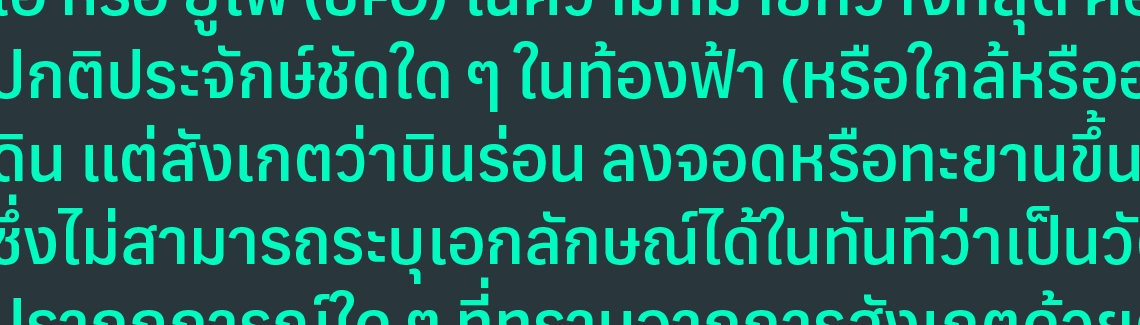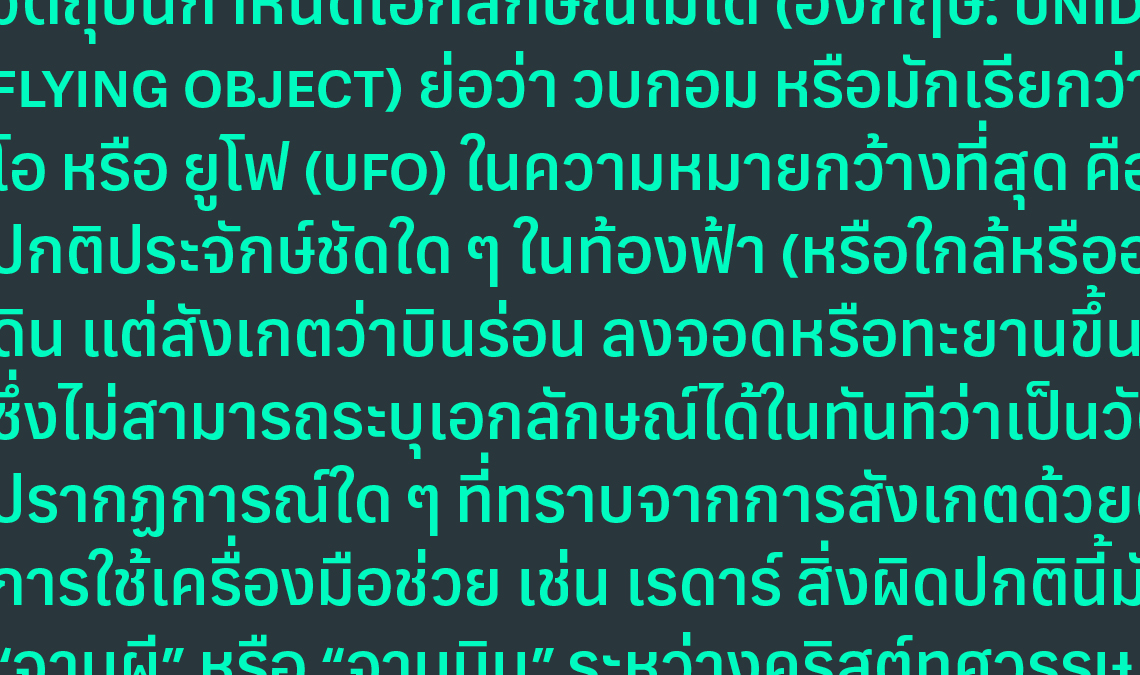
New release: Adelle Sans Thai
Adelle Sans Thai expands the original family’s forms into a versatile tool for countless situations — branding, screens, signage, paragraphs, and advertising.
At the end of 2017 we released Adelle Sans Arabic and last month we released the Devanagari script of Adelle Sans. This month we’re following up with Adelle Sans Thai, by Cadson Demak’s Smich Smanloh and Anuthin Wongsunkakon. In keeping with the Adelle Sans font family’s original look and purpose, the Thai script is a loopless modern design for use in advertising, branding, and editorial works where easy reading and a mature, recognisable aesthetic appeal is desired. Ready to take it for a spin? Head over to our type tester and try your favourite phrases.